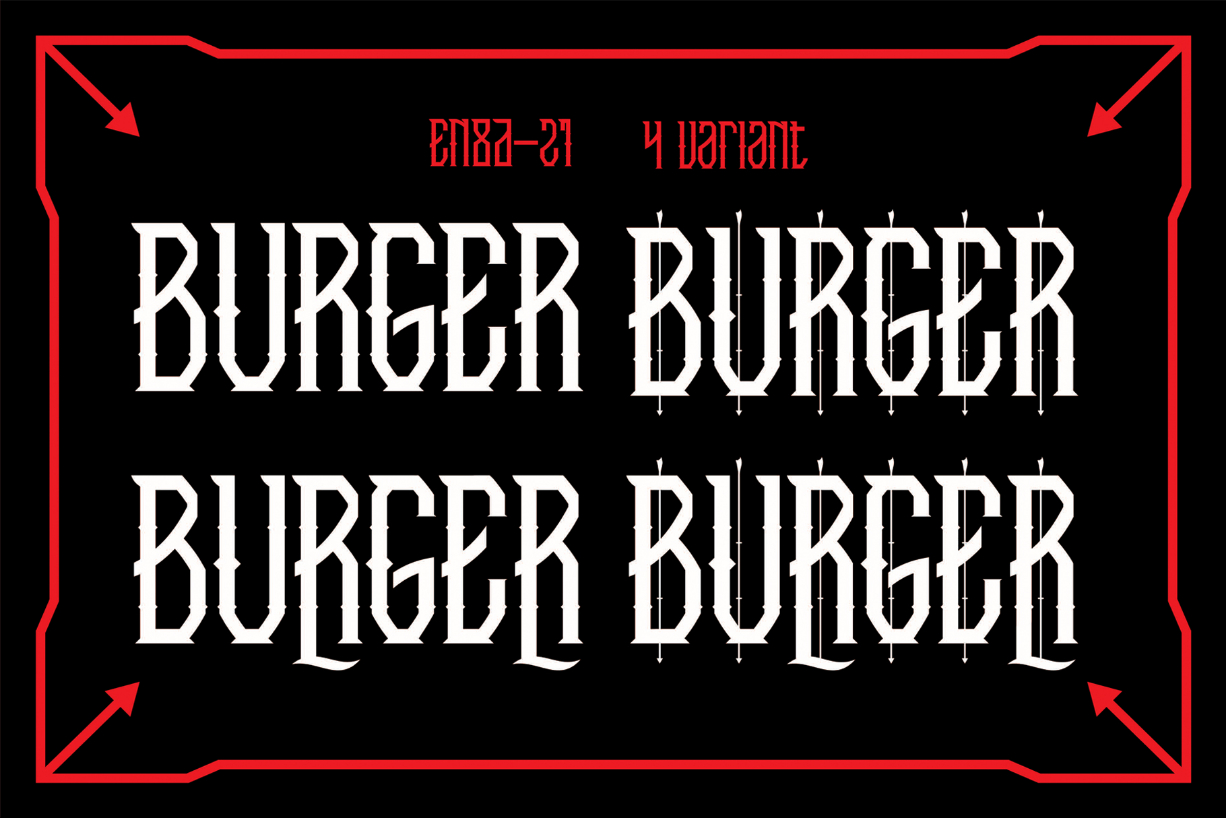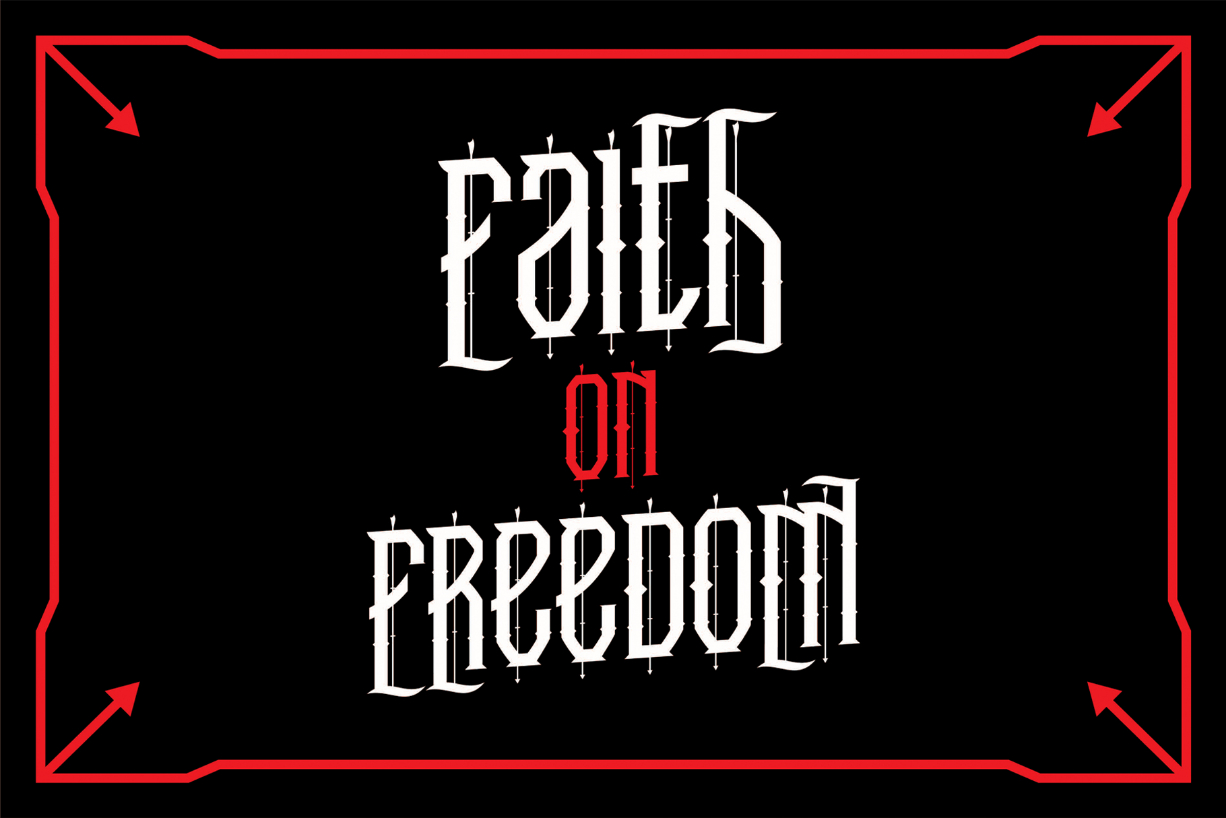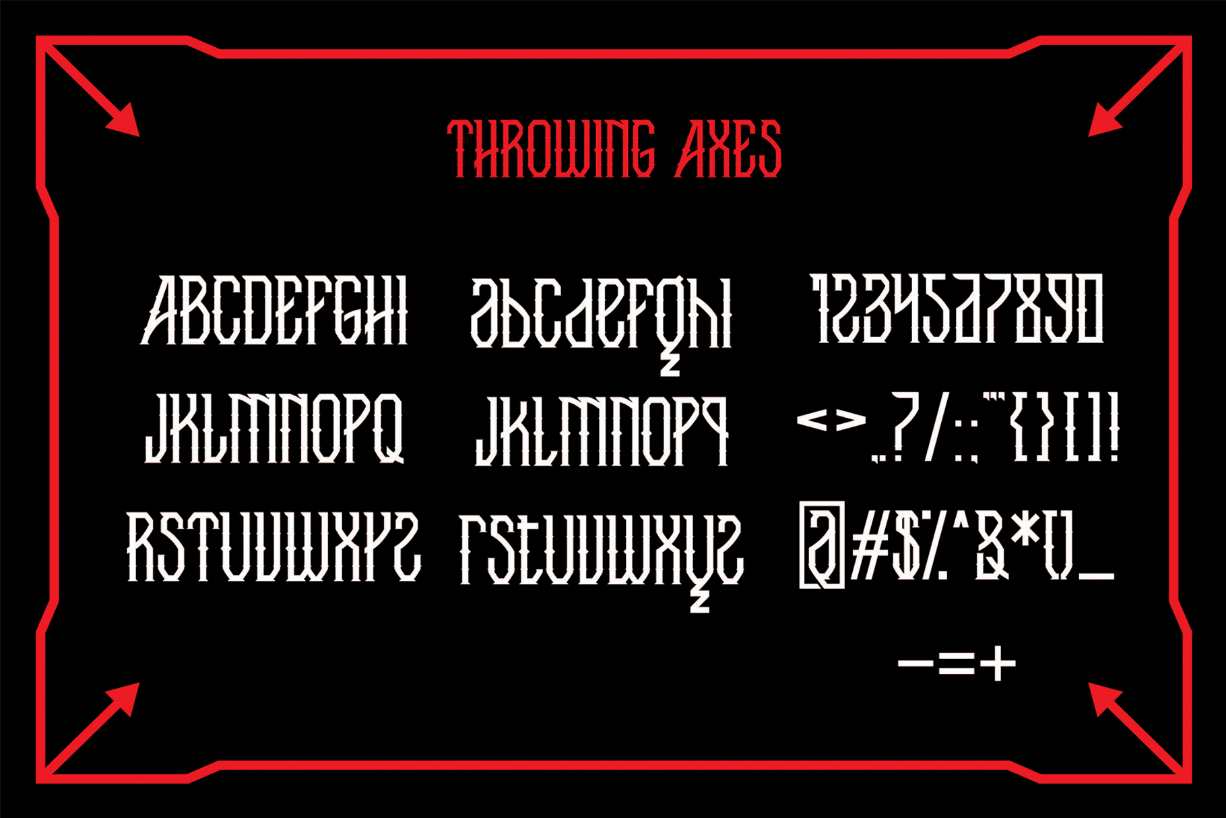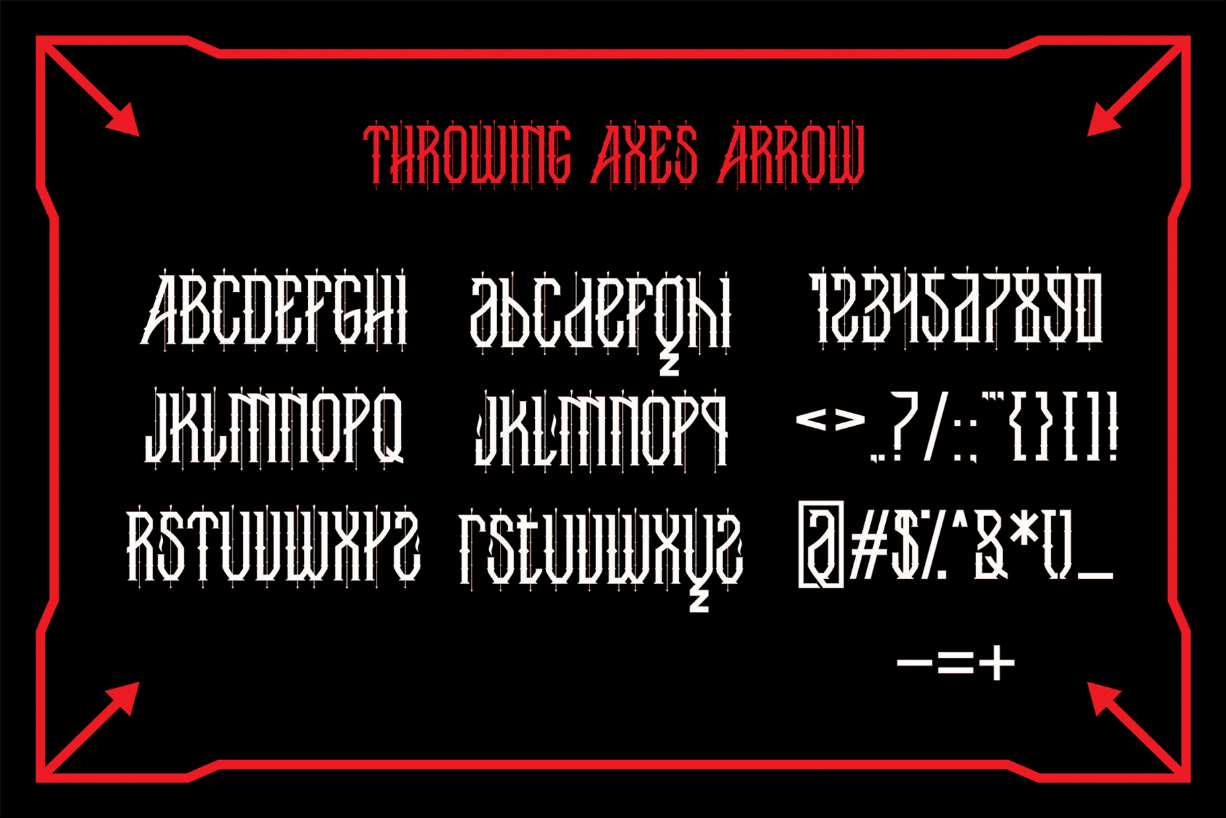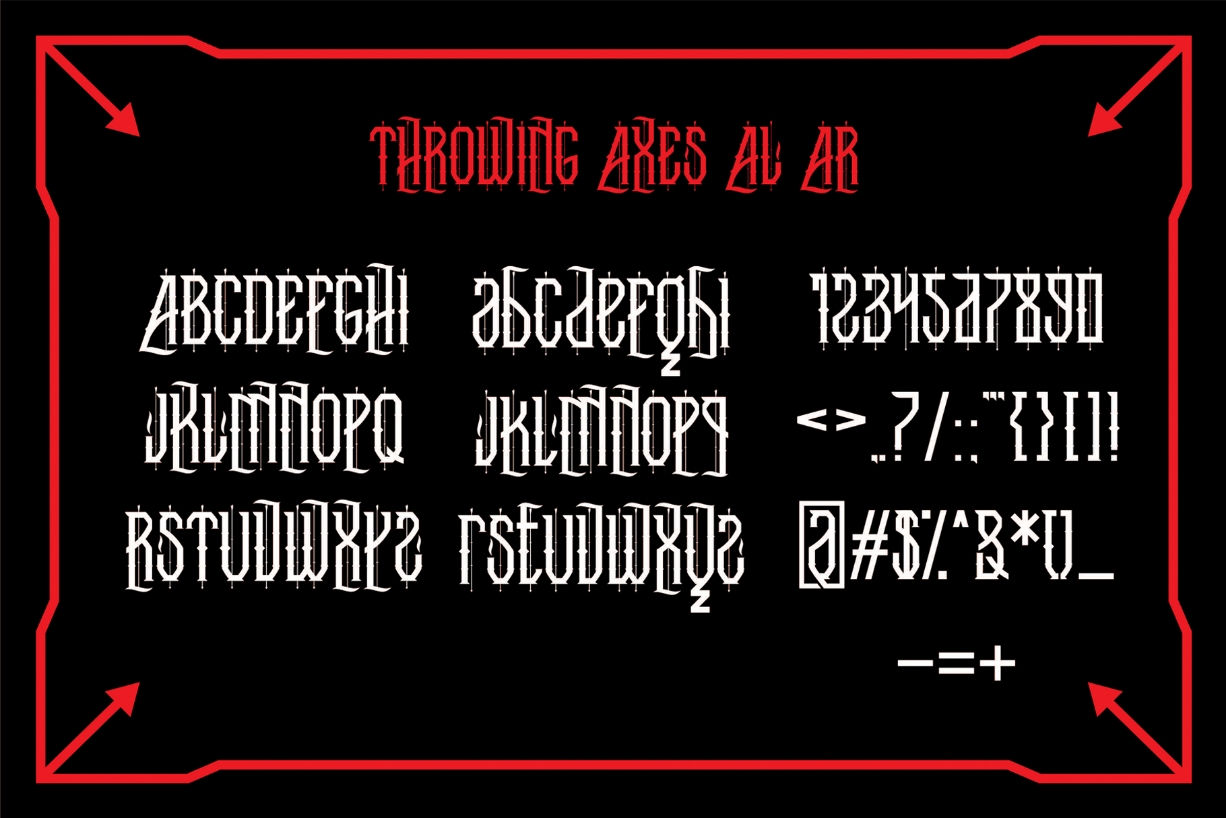
Throwing Axes Font
About Throwing Axes Font
Throwing Axes is a bold blackletter font with sharp characters and includes 4 variants. Great for any cutting edge project!